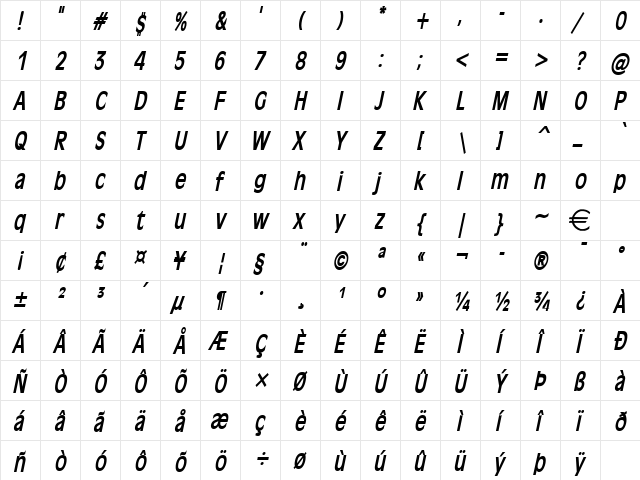
Antiqua101Thin BoldItalic
Design Context for Antiqua101Thin Typeface
Antiqua101Thin is a composed and adaptable typeface that performs quietly and consistently across a wide range of design contexts. The slanted form adds forward momentum and visual energy. Its bold stroke weight gives it real presence on the page.
Pro Tip: Try Antiqua101Thin for annotation and caption copy alongside an upright companion — the contrast in angle creates a dynamic but ordered typographic system.